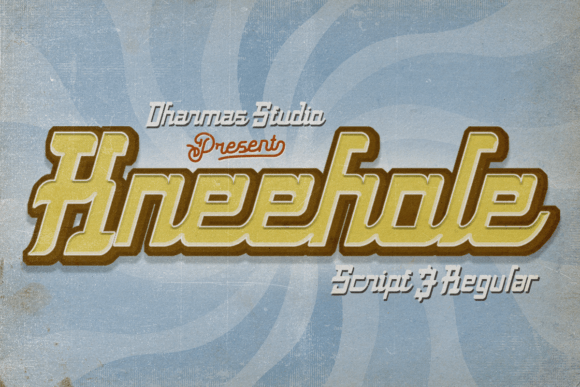
Discover Kneehole, a font that unites the aura of vintage and retro styles with its unique square-shaped letters that evoke a sense of nostalgia. This elegant font is a creation of Dharmas Studio and comes with two captivating styles: Regular and Script.
Be it for creating logos, signboards, or exquisite cards, Kneehole is your ultimate font companion. Let its refined and distinctive character add a touch of timeless charm to your designs.
Unleash your creativity and let Kneehole Font work its magic:
- Step into the past with Kneehole Regular, a font that exudes a classic and timeless vibe. Its clean lines and sharp edges give a sense of stability and sophistication to your designs, making it perfect for logos, posters, and headlines that demand attention.
- Indulge in the allure of Kneehole Script, a font that dances and flows with a vintage flair. Its graceful strokes and elegant curves add a touch of romance and charm to your designs, making it ideal for wedding invitations, branding projects, and packaging designs that seek to leave a lasting impression.
Don't miss out on the chance to elevate your designs with Kneehole, the font that embodies timeless elegance and retro charm. Experience the beauty of its square-shaped letters and the captivating styles that bring your designs to life.